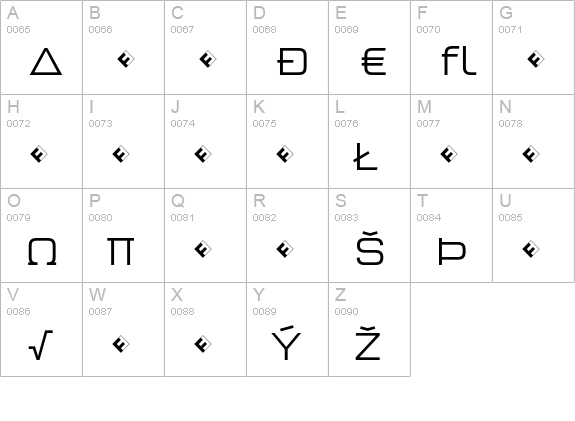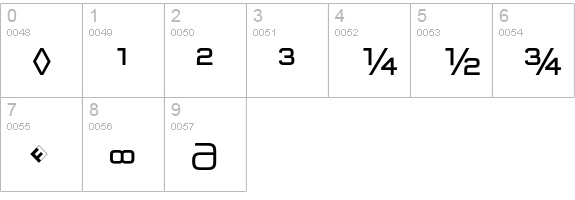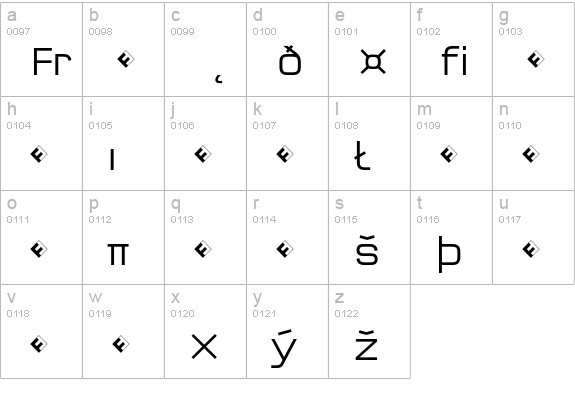
QTypeSquare-LightExpert Font Details
QTypeSquare-LightExpert is a beautifully designed font that effortlessly blends elegance with simplicity. Its clean and modern aesthetic makes it perfect for a wide range of projects, from branding and advertising to web design and packaging. This font features a light weight that adds a touch of delicacy to any text. The expertly crafted letterforms are perfectly balanced, ensuring legibility and readability at any size. Each character has been meticulously designed with attention to detail, resulting in a cohesive and visually pleasing typeface. One of the most appealing aspects of QTypeSquare-LightExpert is that it is free to download. This means that anyone can access and utilize this stunning font without any cost. Whether you're a professional designer or a hobbyist, this font allows you to elevate your creations without breaking the bank. To obtain QTypeSquare-LightExpert, simply head over to FontsMarket.com. There, you can easily download this font, along with many other high-quality options, all for free. FontsMarket.com provides a user-friendly platform that ensures a seamless downloading experience, making it a go-to destination for designers seeking stylish and cost-effective typography. In conclusion, QTypeSquare-LightExpert is a must-have font for anyone looking to add a touch of sophistication and modernity to their designs. With its clean and elegant aesthetic, expertly balanced letterforms, and the fact that it is freely available to download at FontsMarket.com, this font is a valuable asset for any creative project.